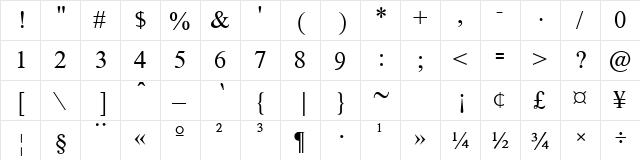
AnmolUni Regular
| Foundry | Punjab Online |
| Designer | Kulbir Singh Thind, MD |
Design Context for AnmolUni Typeface
AnmolUni takes a measured approach to typography — its balanced proportions and neutral character make it a reliable workhorse for both digital and print work.